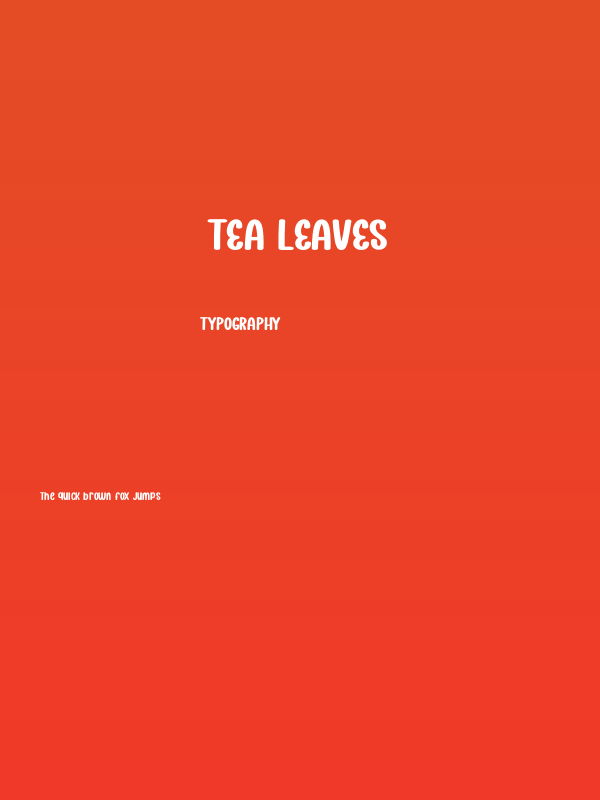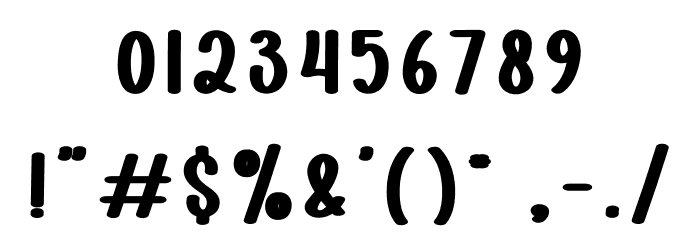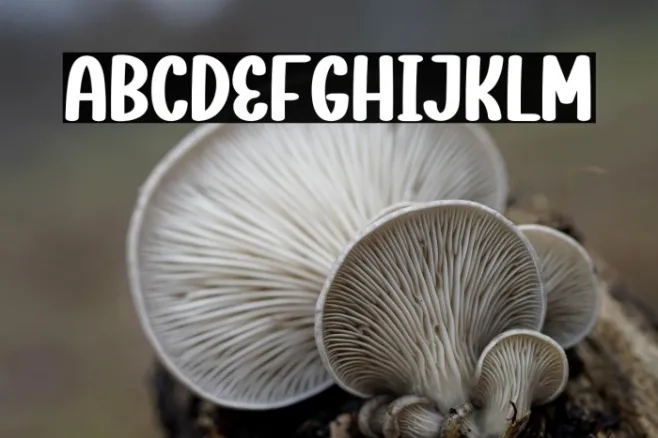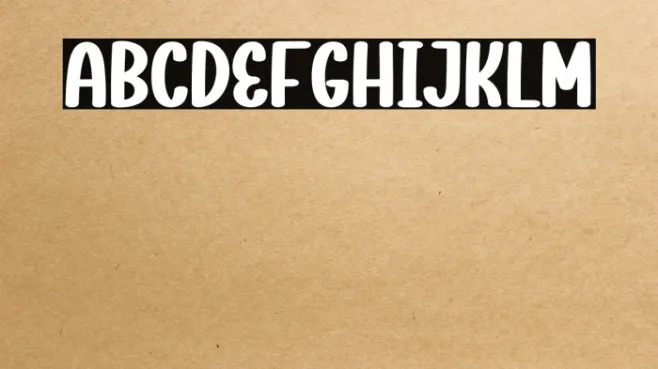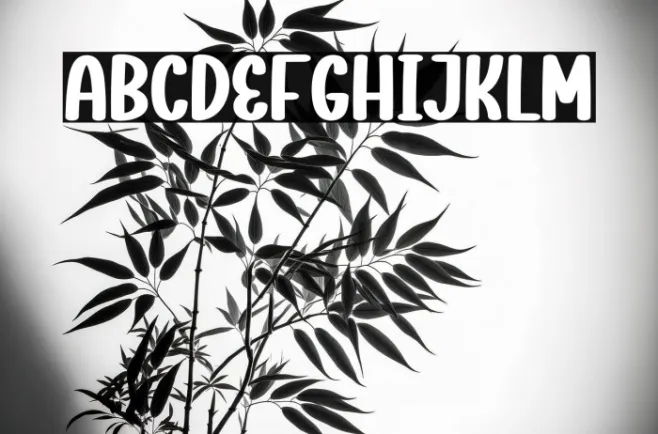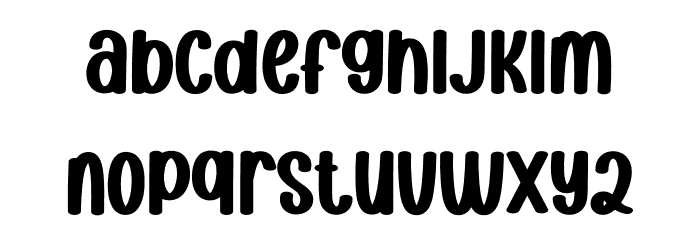
Tea Leaves Font
Tea Leaves Description
This playful and bold font features rounded edges and a slightly condensed form, giving it a friendly and approachable appearance. The characters are uniformly thick, providing a consistent and cohesive look across all letters and numbers. The font's whimsical style is accentuated by its smooth curves and lack of sharp angles, making it ideal for projects that require a fun and informal touch. Its readability is enhanced by the generous spacing between characters, ensuring clarity even at smaller sizes. The font's unique personality makes it suitable for a variety of creative applications.
| Proposed Projects | Ideal for children's books, playful branding, greeting cards, and casual invitations. |